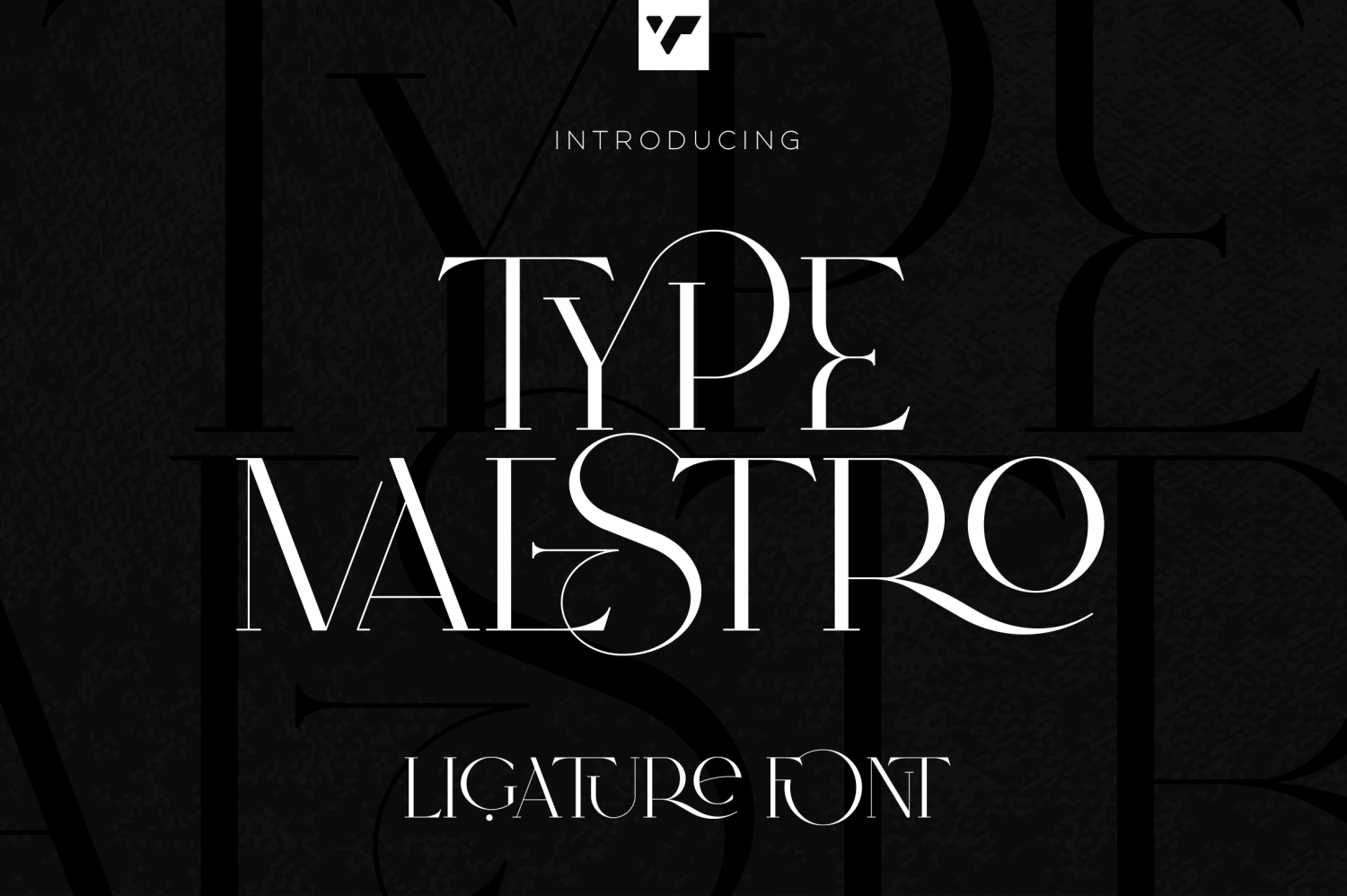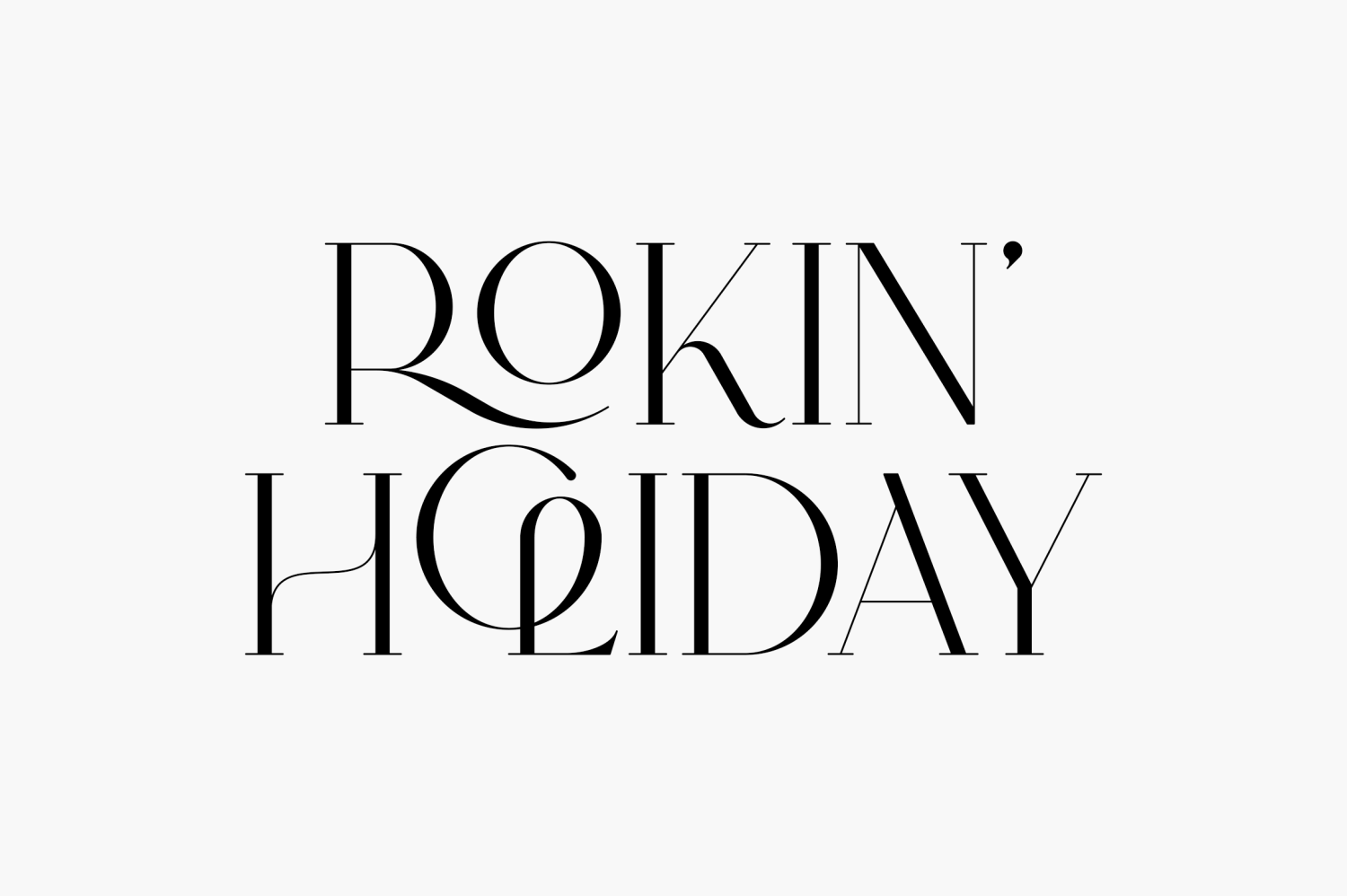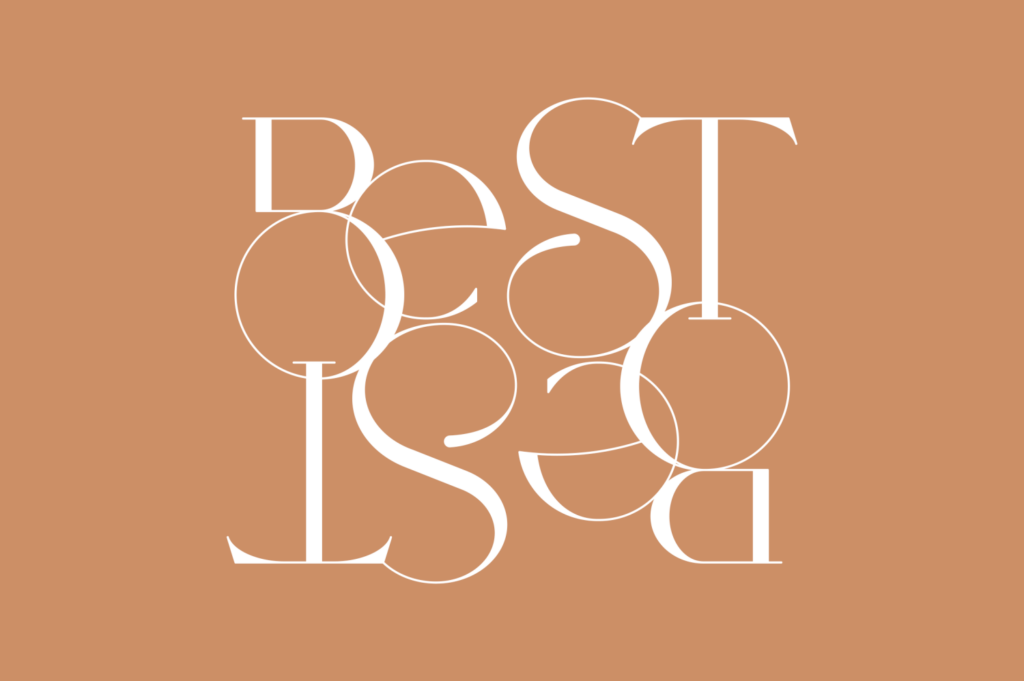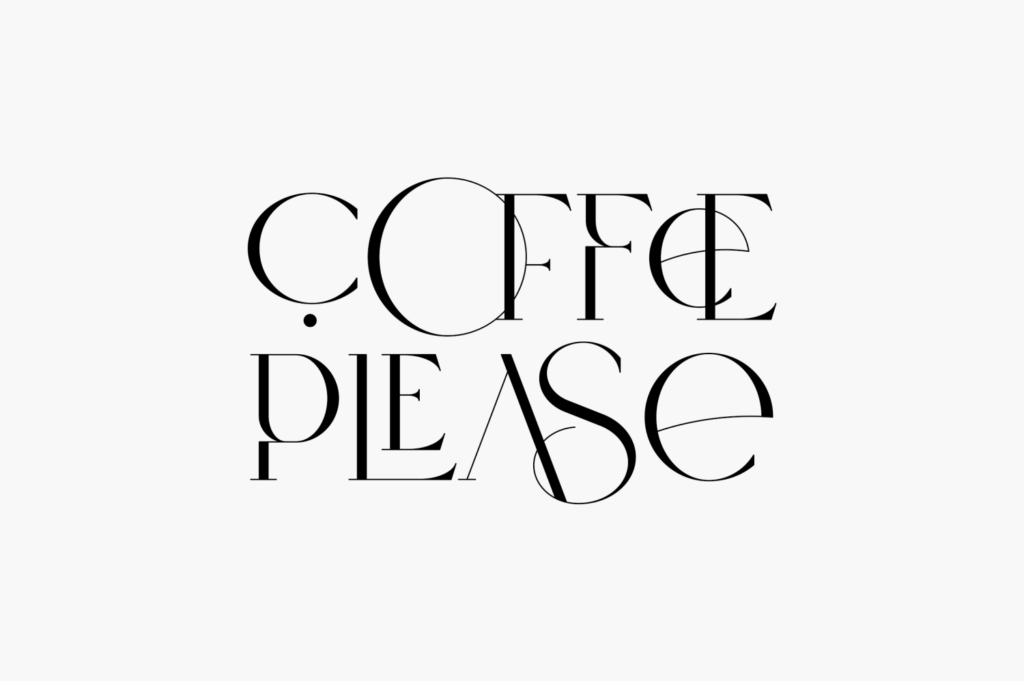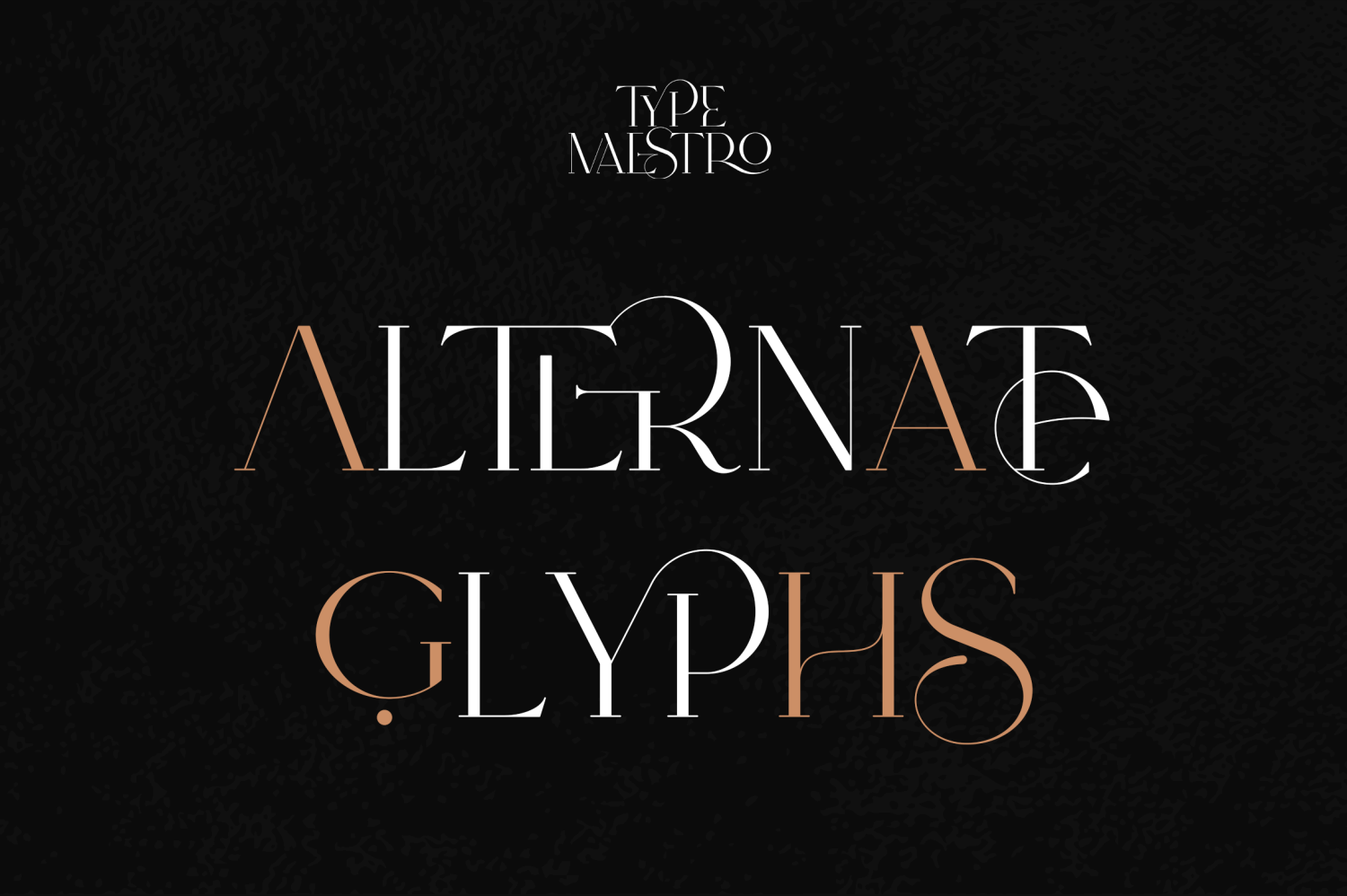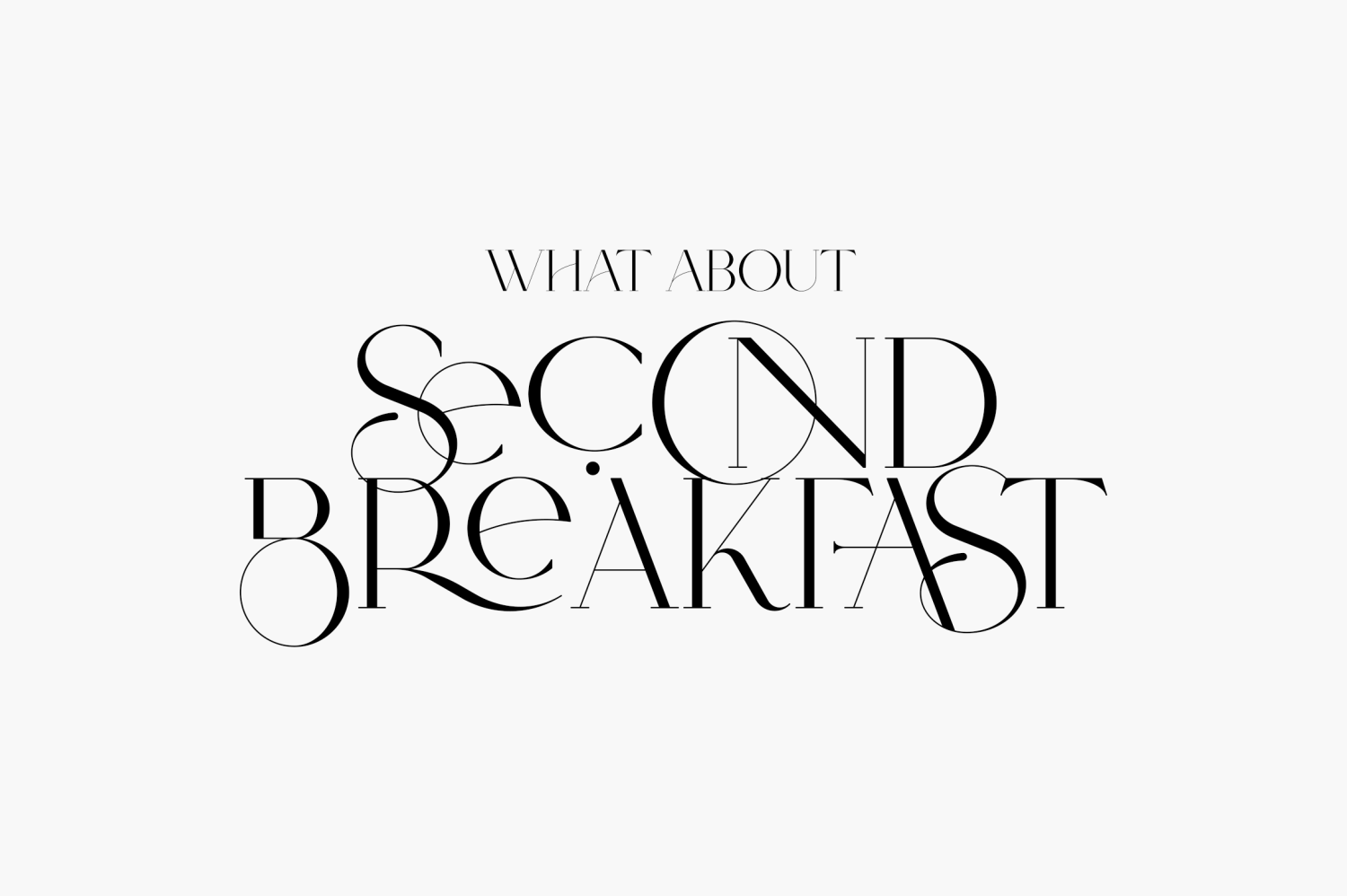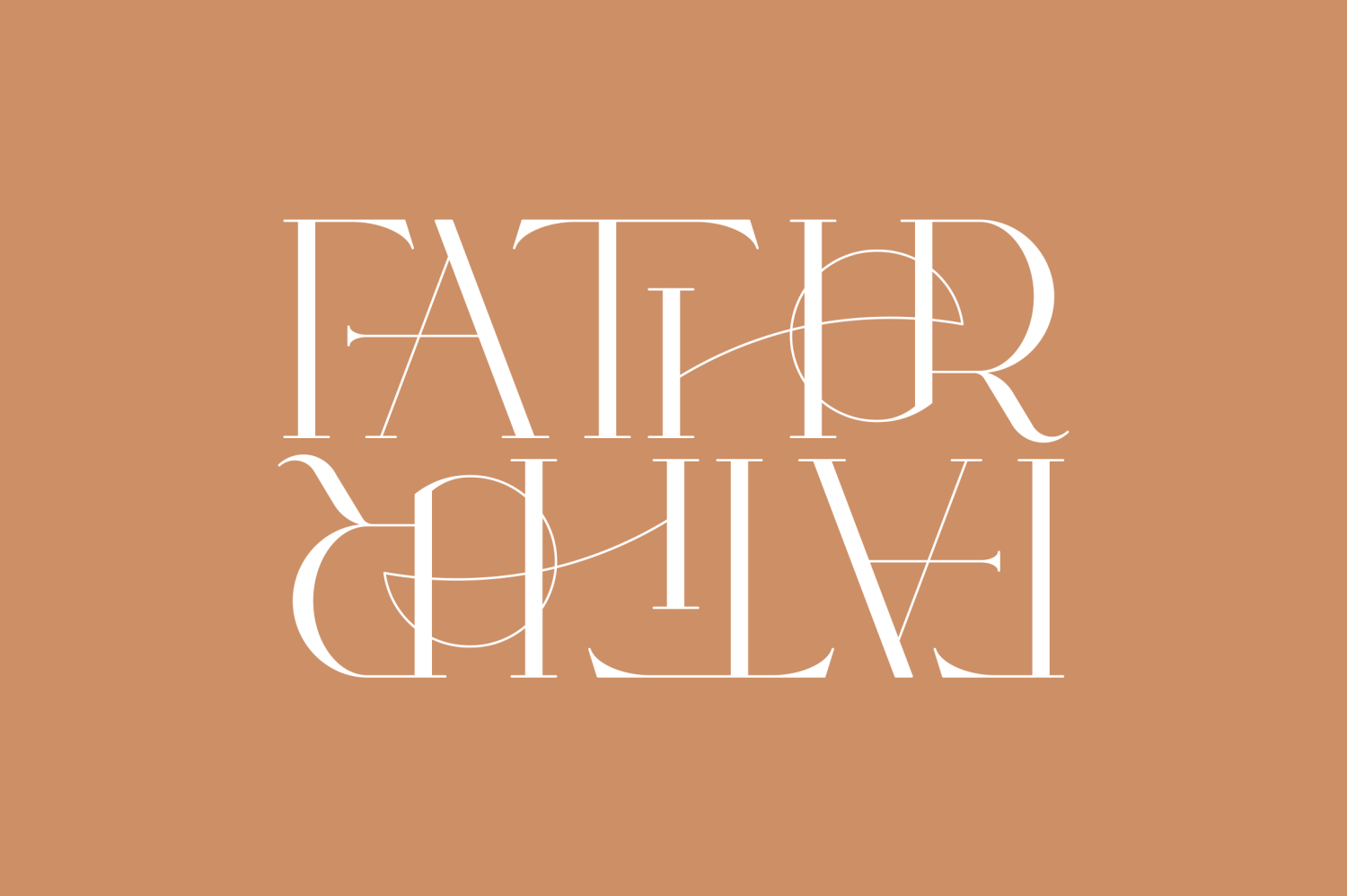
Type Maestro
About Type Maestro
Hello type lovers 🙂 purchase my products for + and receive 369 fonts as "thank you" gift 🙂 Type Maestro is an exquisite ligature serif font that exudes creativity and elegance. With over 100 meticulously crafted ligatures, this font is…